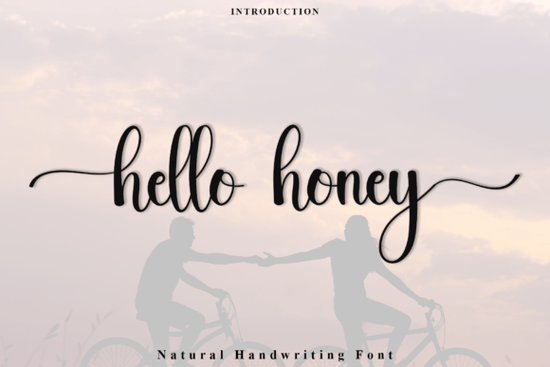
Looking for a font that adds a touch of elegance and charm to your designs? The Hello Honey Font is a perfect choice for anyone who wants to bring a handwritten feel to their projects. Whether you're creating wedding invitations, greeting cards, or logos, this script font delivers a stylish and sophisticated look that stands out.
The Hello Honey Font is ideal for designers, crafters, and small businesses looking for a versatile and attractive typeface. Its flowing lines and refined style make it suitable for a wide range of applications, from personal projects to professional work. If you're exploring other script fonts, you might also enjoy Bubble Font, Hello Kitty Font, or Farmhouse Script.
One of the key strengths of the Hello Honey Font is its readability. While it has a script appearance, it remains easy to read, even at smaller sizes. This makes it great for use on business cards, thank you notes, and other printed materials. It also works well in digital formats, such as social media posts, website headers, and email newsletters.
What Makes Hello Honey Font Stand Out?
The Hello Honey Font offers a unique blend of elegance and approachability. Unlike some more formal script fonts, it has a soft and friendly tone that feels inviting. This makes it especially popular for wedding and event-related designs, where a warm and personal touch is essential.
If you're looking for similar styles, you might also like Cooper Black Font. Both fonts share a handwritten quality but differ in their overall structure and visual impact.
How to Use Hello Honey Font in Your Projects
There are many ways to incorporate the Hello Honey Font into your creative work. For example:
- Wedding invitations: Add a personal and elegant touch to your special day with custom-designed invites.
- Greeting cards: Make your messages stand out with a unique and artistic font.
- Logos: Create a memorable brand identity with a script font that feels both modern and timeless.
- Business cards: Make a strong first impression with a professional yet stylish design.
This font is also a great option for print-on-demand sellers who want to offer custom designs with a handwritten feel. Its versatility ensures it can be used across different mediums and formats.
Whether you're a designer, crafter, or small business owner, the Hello Honey Font is a valuable addition to your collection. Its elegant and stylish appearance makes it a go-to choice for any project that requires a handwritten touch.
As you explore the world of script fonts, keep in mind that each one has its own personality. The Hello Honey Font is just one of many options available, but its combination of beauty and usability makes it a standout choice.